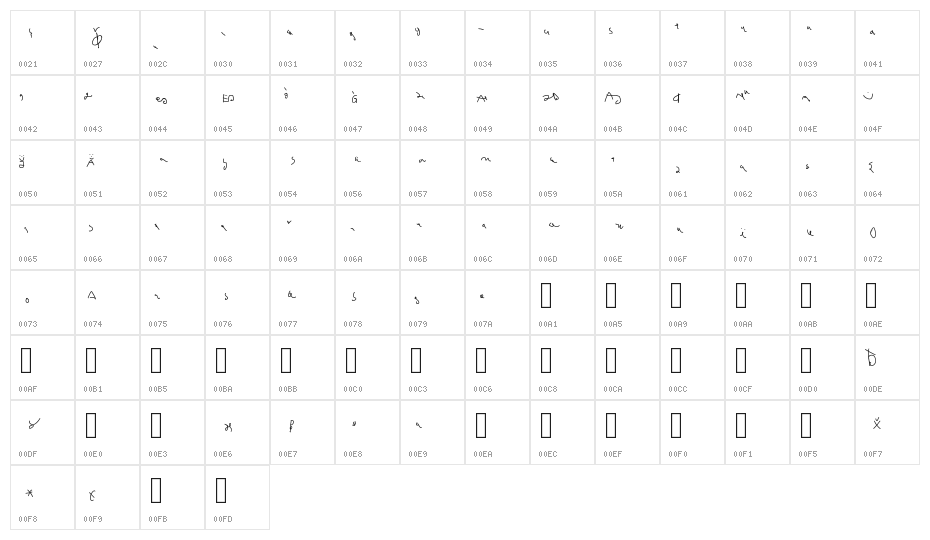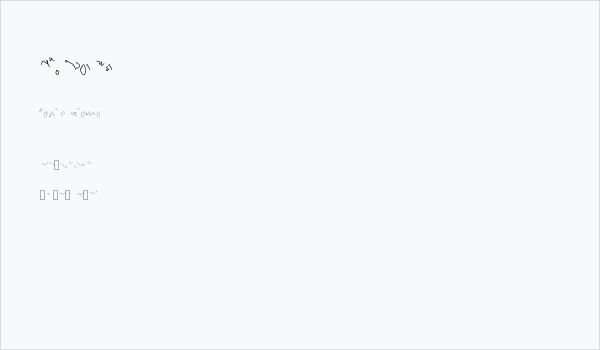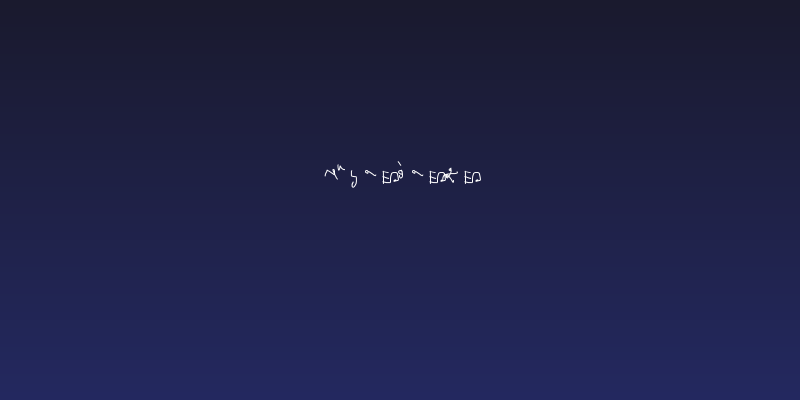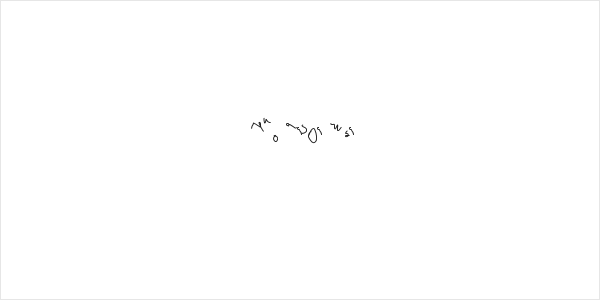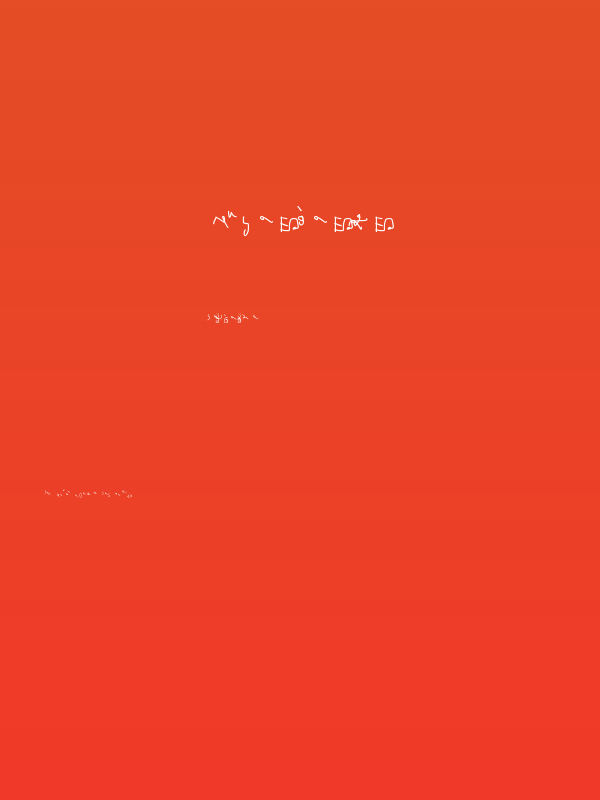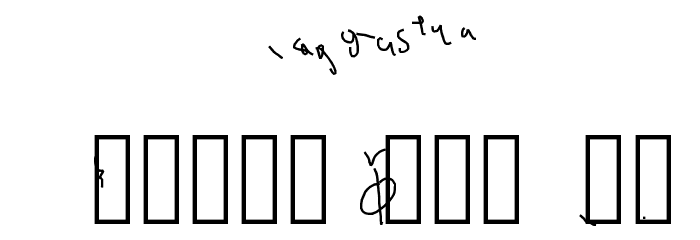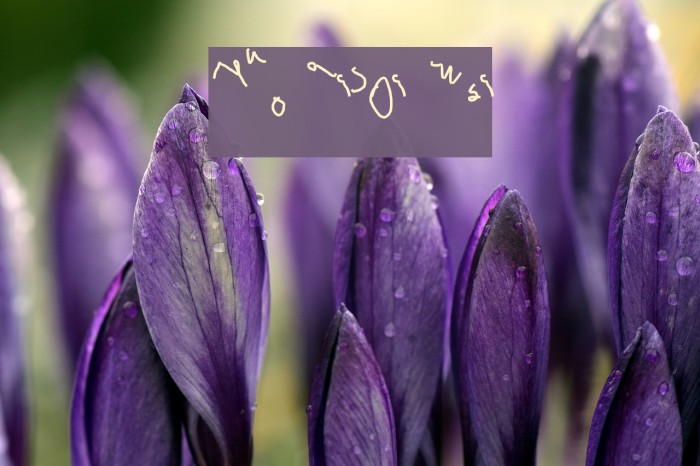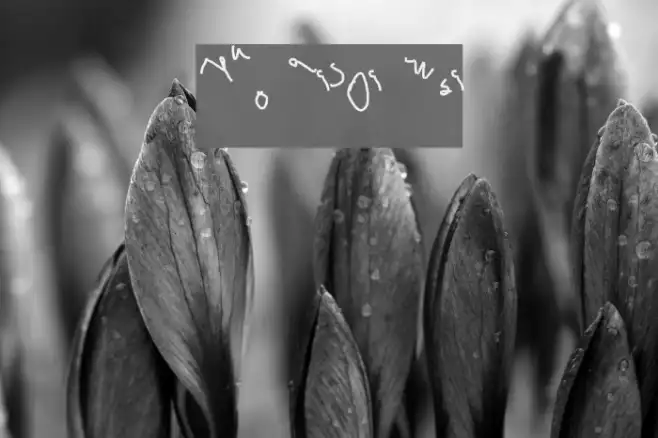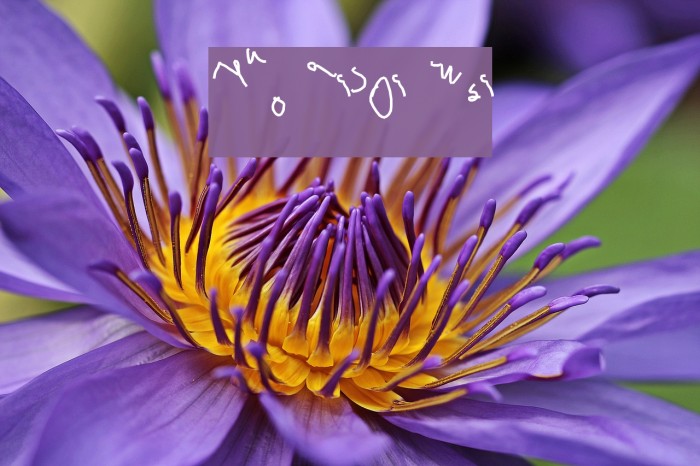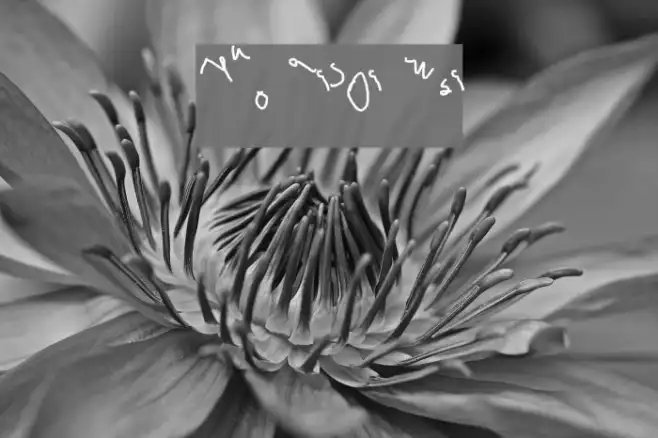
MsRefrence Font
MsRefrence Description
Highly irregular, abstract script with inconsistent letterforms and a handwritten, almost chaotic appearance. Characters are loosely connected, with varying heights and slants, making legibility low. Some symbols are decorative or non-standard.
| Overall Style | Decorative, Abstract, Experimental |
| Use Case | Art projects, experimental design, not suitable for body text or standard communication. |
| Proposed Projects | Experimental art, abstract posters, avant-garde zines, conceptual design projects. |